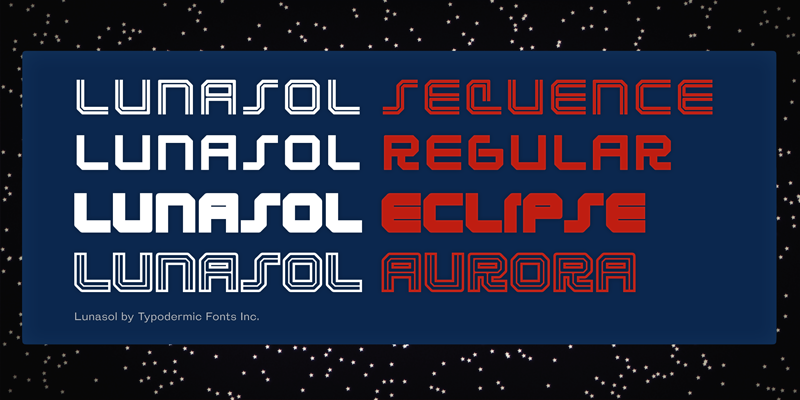
Preview and download Lunasol Font. Created by Typodermic Fonts in Techno Square styles with 100% Free license.
Lunasol is a factory-made, mechanical headliner. Experiment by overlapping various layers. These fonts include a license that allows free commercial use: sometimes referred to as a desktop license. This allows you to install the fonts on a computer and use them to create posters, web graphics, game graphics, t-shirts, videos, signs, logos and more. Read the license agreement for details. If you'd like to embed these fonts in an app, ebook, on the web or anything that's not covered by the desktop license agreement, visit the link below. You'll find distributors who offer different types of licenses or you can contact me for help. http://typodermicfonts.com/lunasol/ |